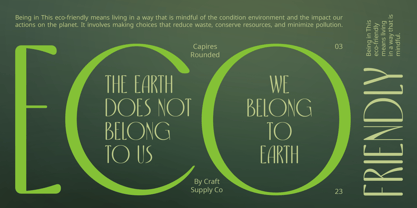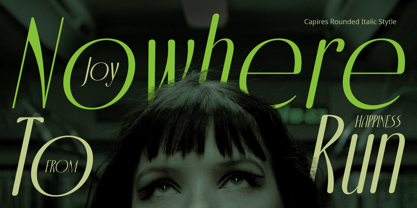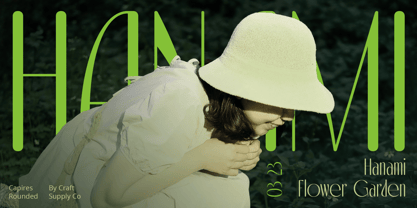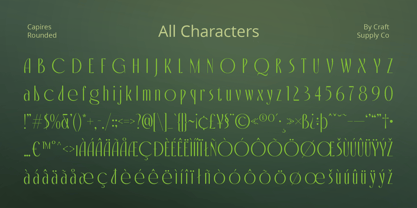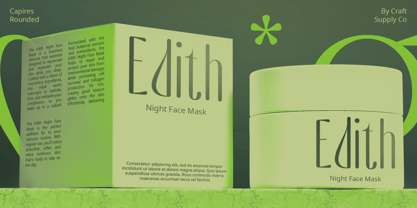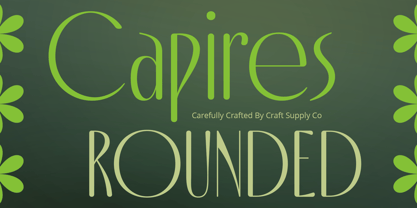
Capires Rounded
par Craft Supply Co
La famille de polices Capires Rounded a été conçue par Trio Nazzar Saputra, Wahyu Hadi Yuana et publiée par Craft Supply Co. Capires Rounded contient 2 styles et options de package familial.
Capires Rounded: A Contemporary Twist on Art Nouveau
Sleek Elegance with Rounded Edges
Capires Rounded presents a sleek sans serif design elevated by its distinctive rounded terminals. Inspired by the flowing lines of Art Nouveau, this font exudes a sense of elegance and sophistication.
Art Nouveau Inspiration
Drawing inspiration from the Art Nouveau movement, This font captures the essence of organic forms and fluidity. Its tall stature and rounded edges pay homage to the intricate details of this iconic style.
Perfect Blend of Tradition and Modernity
This font seamlessly merges traditional Art Nouveau influences with contemporary design elements. Its tall, rounded letterforms strike a balance between classic charm and modern aesthetics, making it suitable for a wide range of applications.
Versatile and Engaging
Designed for versatility, This font adds a touch of personality to various design projects. Whether used in branding, editorial layouts, or web design, its rounded edges and tall stature create a captivating visual impact.
Timeless Sophistication
This font stands as a testament to timeless sophistication, blending Art Nouveau inspiration with contemporary design sensibilities. With its sleek lines, rounded terminals, and engaging presence, this font offers a modern twist on a classic style, sure to elevate any design project.